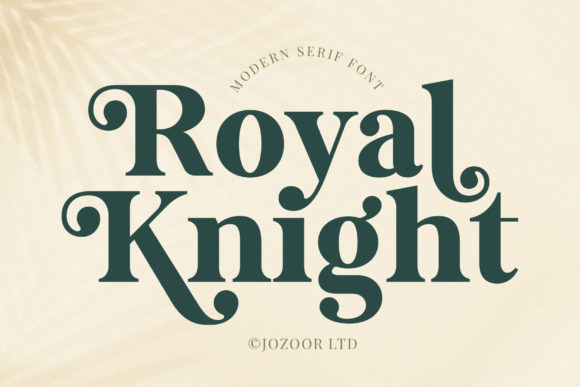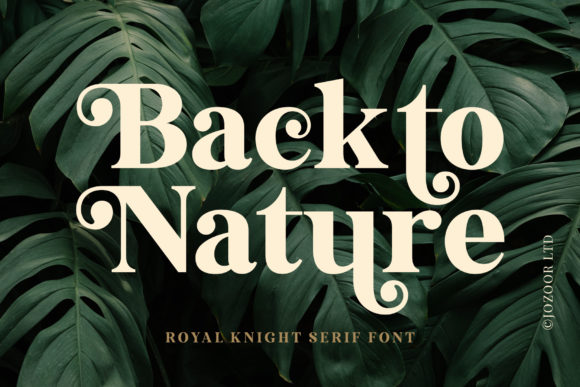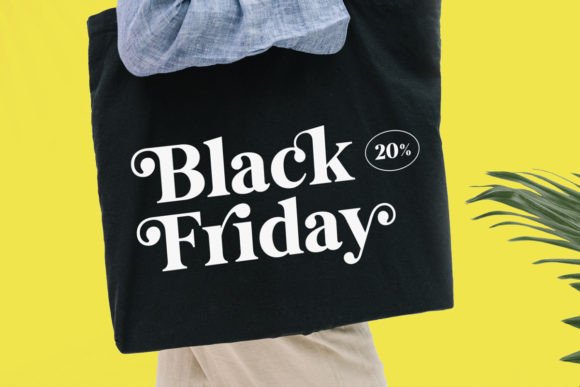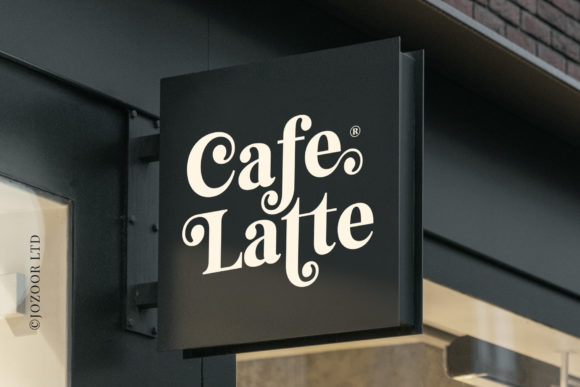
Royal Knight Font: Elegant Serif for Luxury Logo Design & Branding
About the Royal Knight Font
Get ready to be inspired by Royal Knight Font, a fresh and dynamic typeface for modern creators. Royal Knight is a cool and stylish serif font, featuring its own unique style and modern look. This typeface is perfect for an elegant & luxury logo, book or movie title, fashion brand, magazine, clothes, lettering, quotes and more. Royal Knight is PUA encoded which means you can access all of the glyphs and swashes with ease.
Royal Knight’s strong serifs and confident stroke contrast make it ideal for headlines, logos, and short-form text in branding materials and posters. Its elegant nature suits high-end fashion, luxury goods packaging, and projects requiring a sophisticated feel. However, its decorative elements make it less suitable for body text or UI applications where readability is paramount.
Pairing Royal Knight works best with clean, neutral sans-serifs like Open Sans or Lato for a balanced contrast, or with a geometric sans-serif like Montserrat for a modern, high-impact feel. A script font like Great Vibes could add a touch of vintage charm for specific applications, though care should be taken to avoid overwhelming the design.
The overall personality of Royal Knight is sophisticated yet bold, conveying both elegance and strength. It is well-suited to brands that aim for a classic yet contemporary image, suggesting luxury and trustworthiness.
Royal Knight Font Usage Examples
Royal Knight Font Example